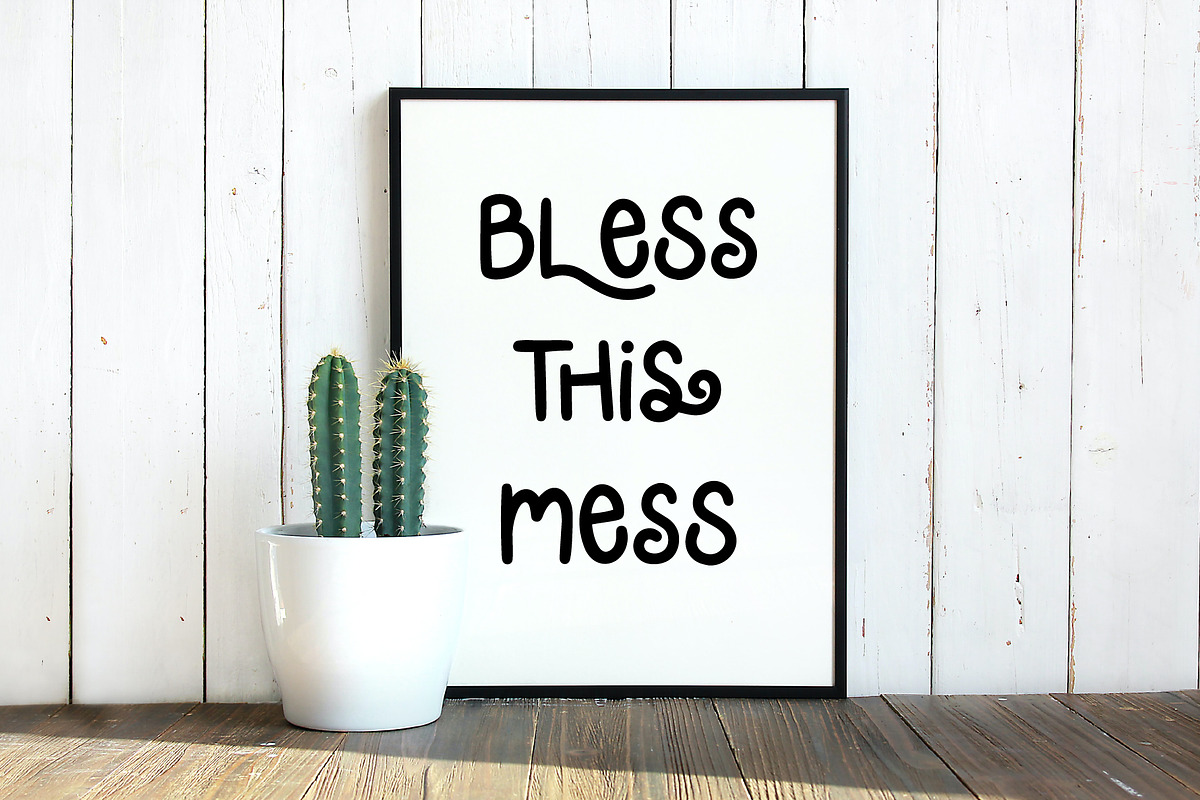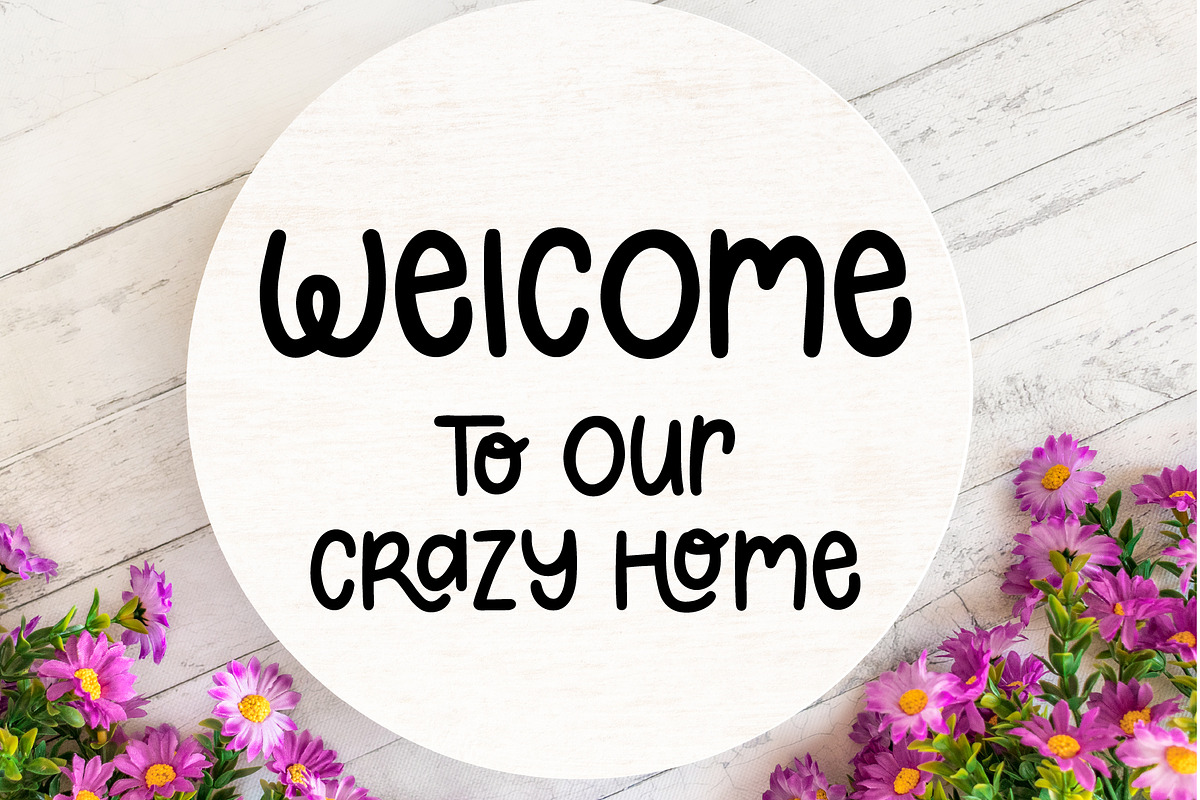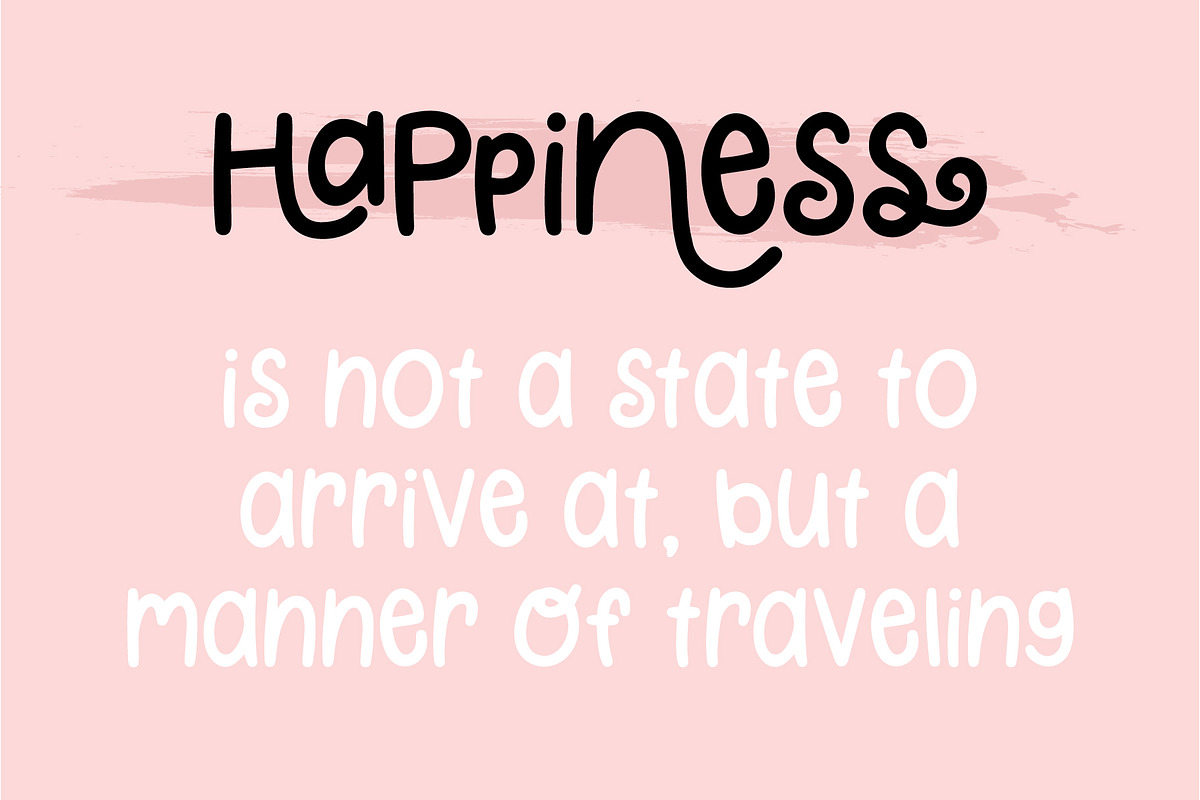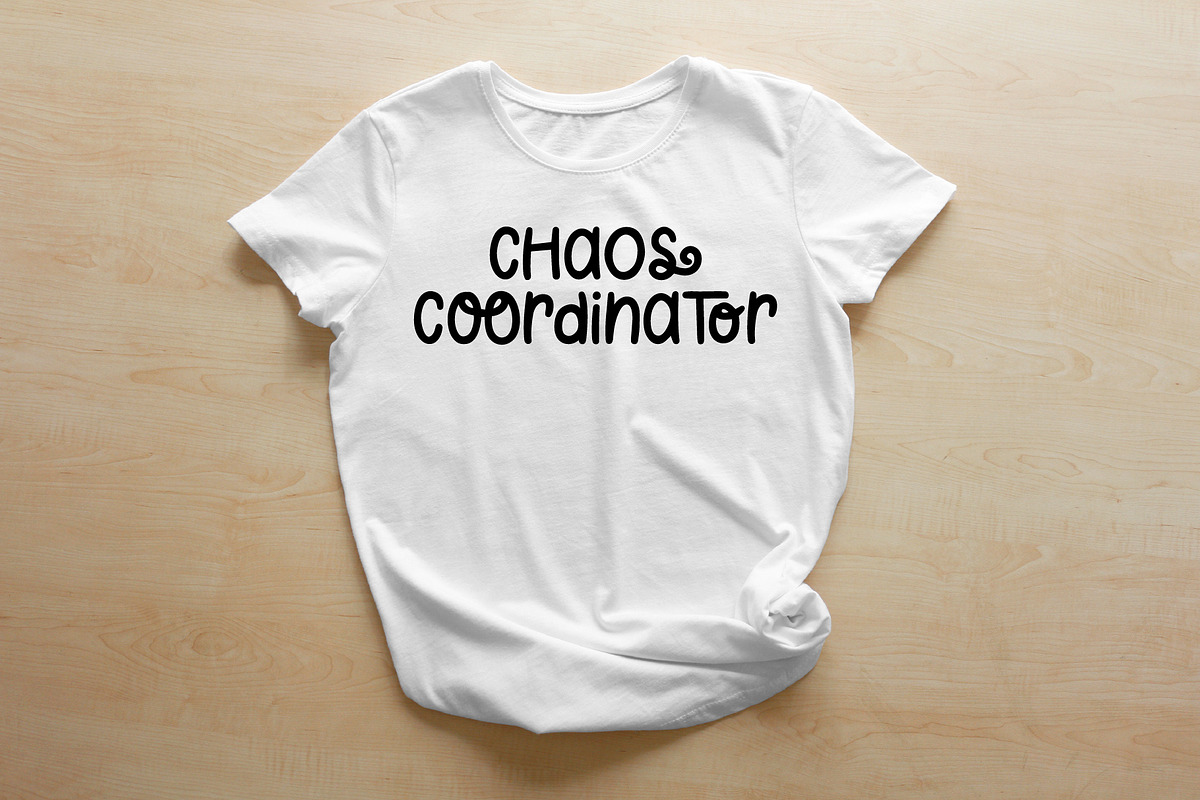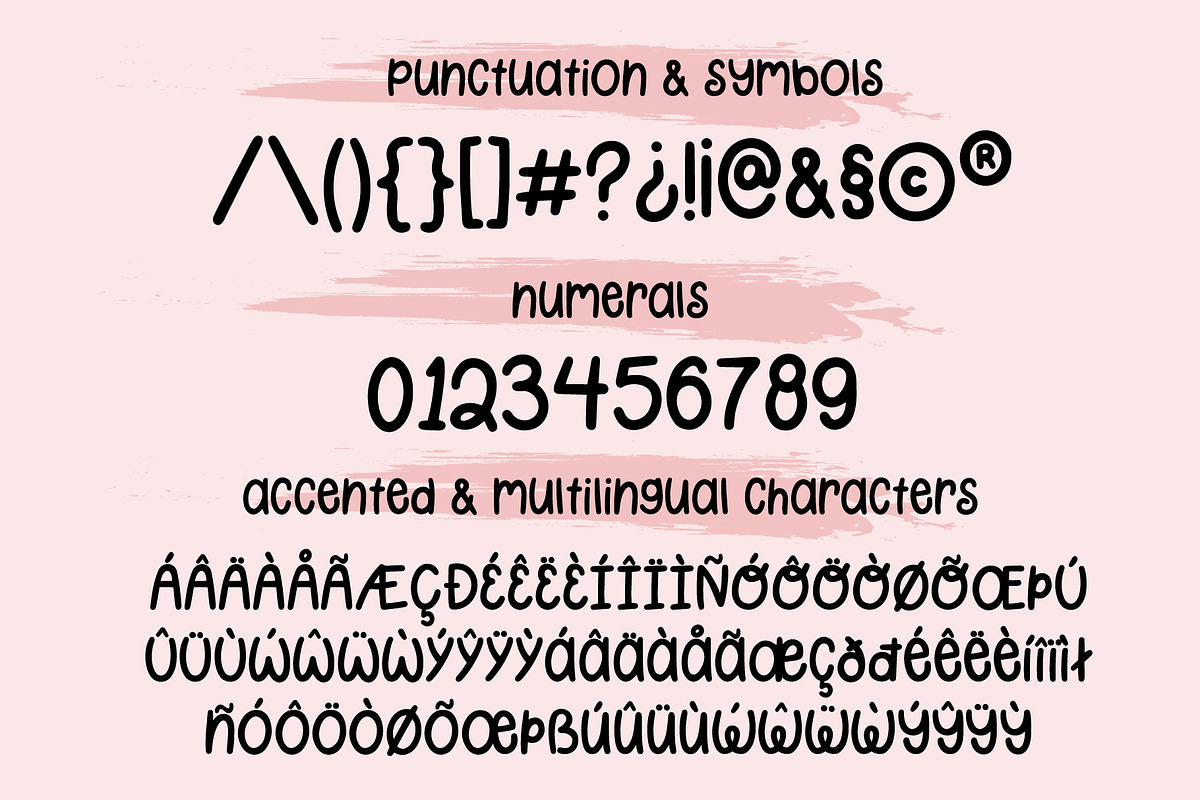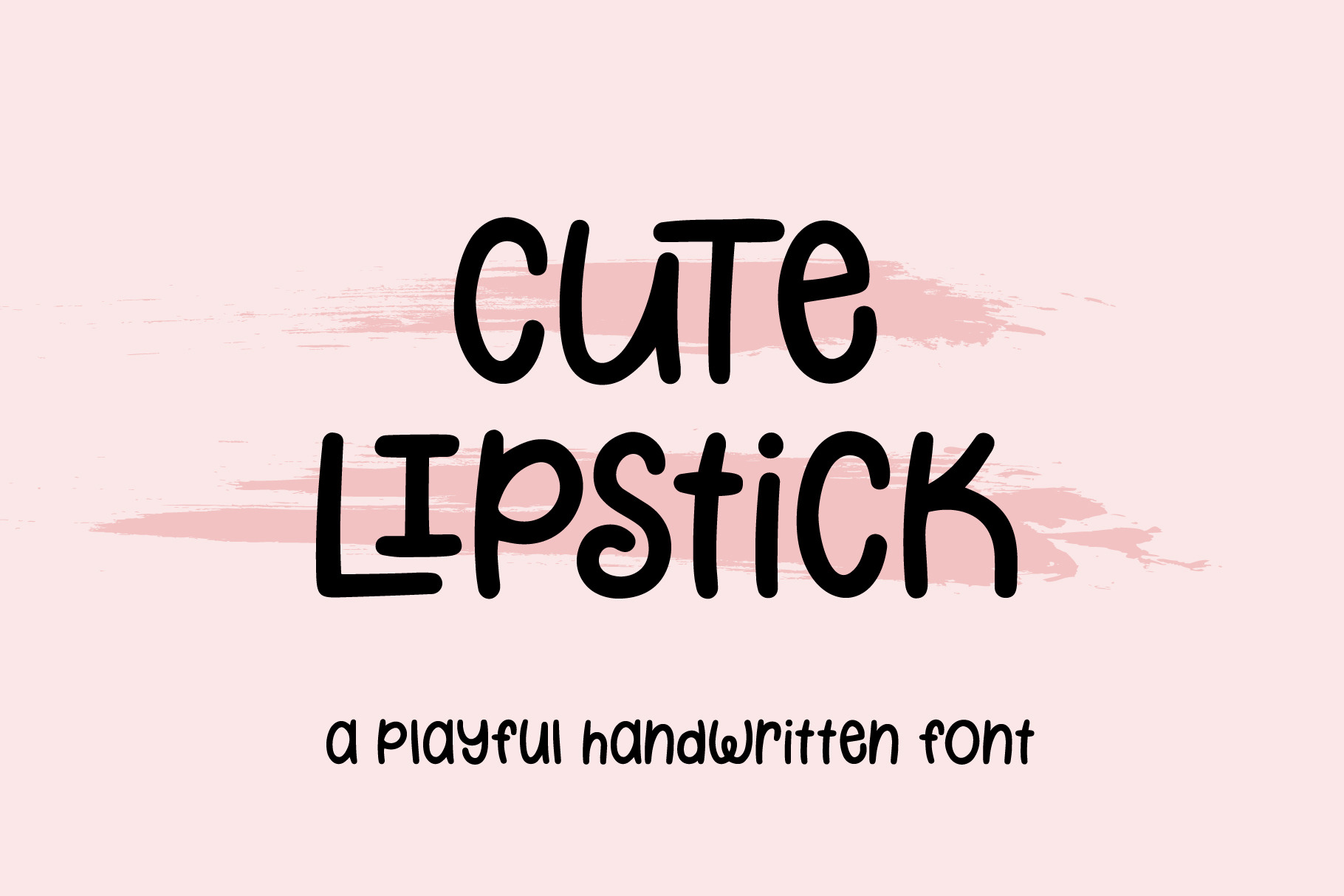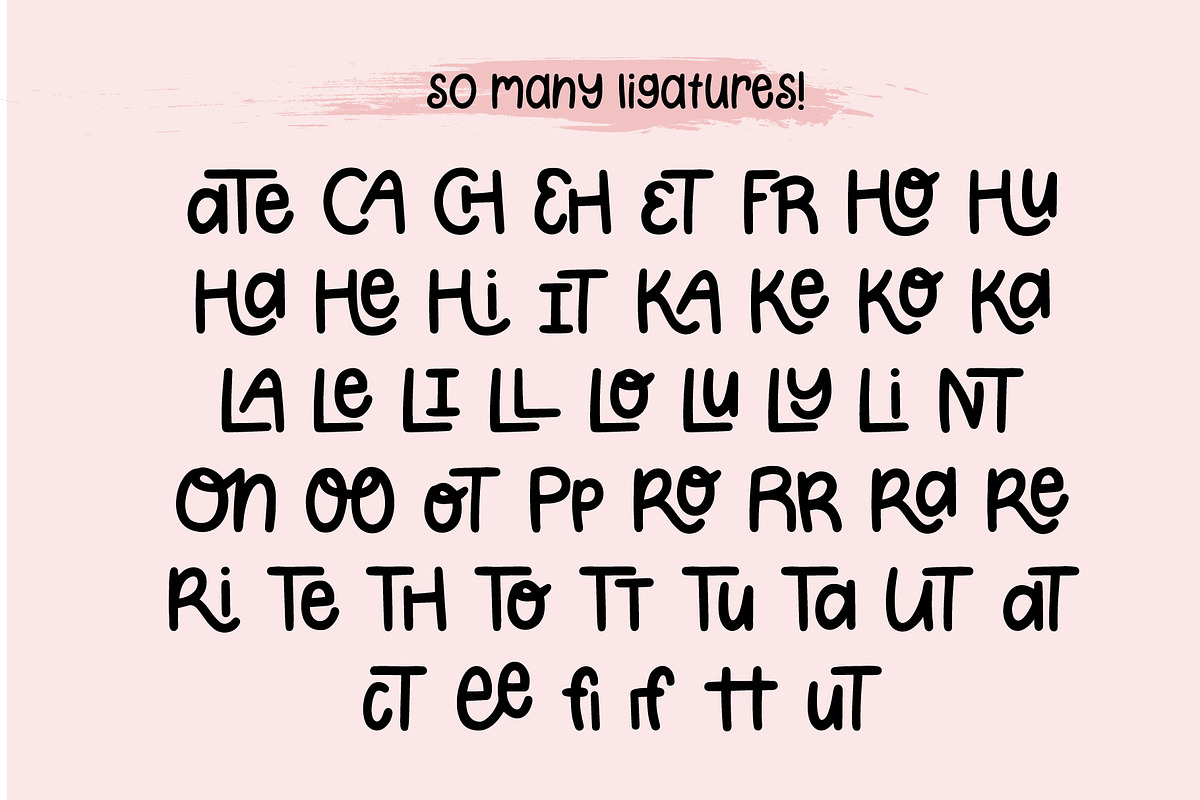
Cute Lipstick Playful Font
Cute Lipstick is a super playful handwritten font! Cute Lipstick features uppercase and lowercase letters that are the same height so you can mix and match for a playful and unique look.
Cute Lipstick includes some funky stylistic alternates and soooo many ligatures! You can really customize your design to achieve that quirky and fun look.